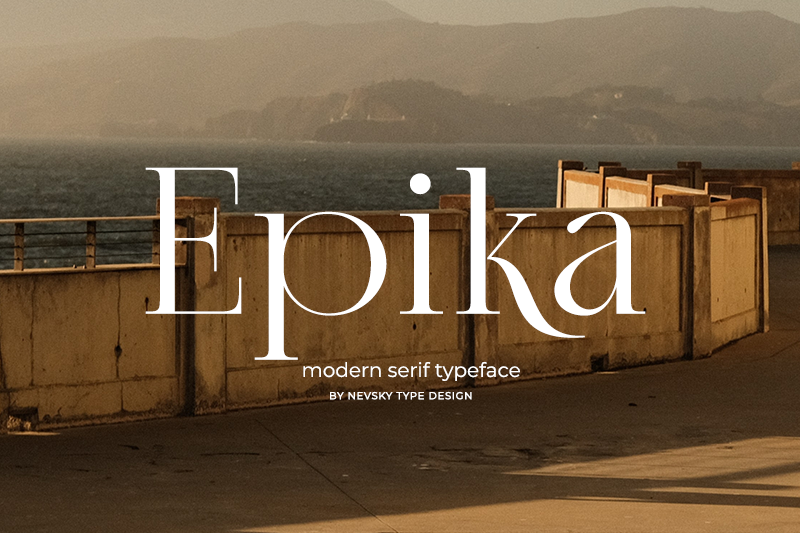
Font name: | NT Epika |
Author: | Artem Nevsky |
"NT Epika" is a modern serif typeface. This font needs to be in your collection and is perfect for your next design project. "NT Epika" will perfect for many project: invitations, postcards, posters, book covers, advertisements, website headers, logos, magazines, fashion, branding, photography etc. "NT Epika" supports over 200 Latin-based languages. This font free for PERSONAL USE. If you need more detailed information you can contact me at: nevsky.type@gmail.com -------- FOR PERSONAL AND COMMERCIAL USE, please download here: https://pixelsurplus.com/products/nt-epika-modern-serif-typeface https://creativemarket.com/nevsky.type https://thehungryjpeg.com/store/nevsky-type -------- my works: https://www.behance.net/artemnevsky email: nevsky.type@gmail.com |